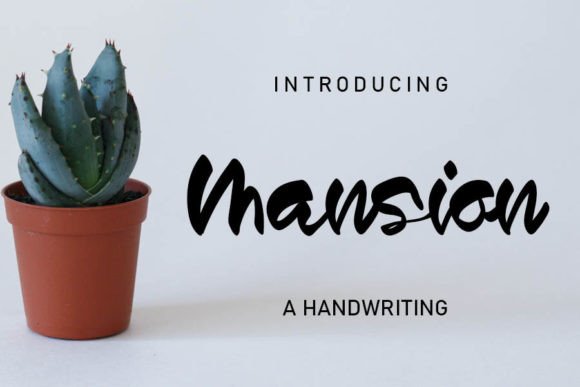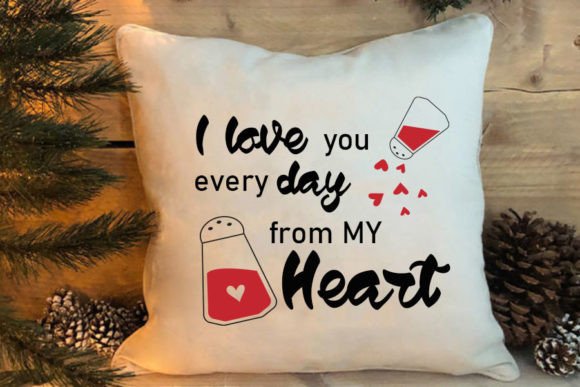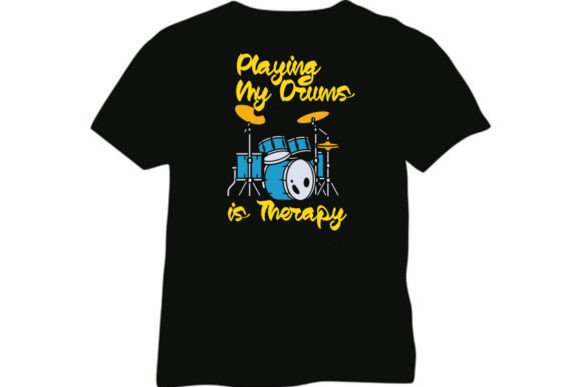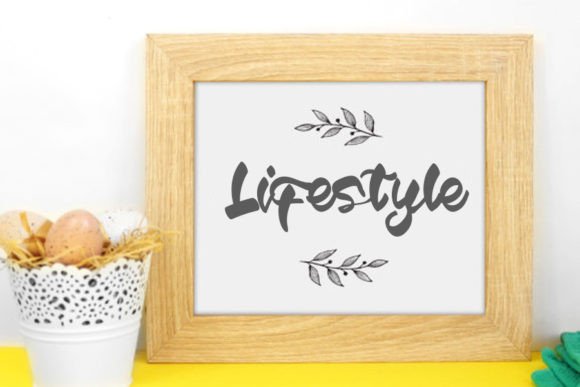
About Mansion Font
“Mansion” is a whimsical and playful handwritten font that brings a touch of charm and trendiness to your design ideas. This font has a lovely and lighthearted quality, making it suitable for a variety of creative projects that require a playful and trendy touch.
The standout features of “Mansion” are its whimsical and playful nature. Its handwritten style exudes a sense of spontaneity and authenticity, making it an excellent choice for projects that aim to capture a lively and contemporary aesthetic.
Picture using “Mansion” to create captivating event posters or eye-catching social media graphics that resonate with a modern audience. Visualize incorporating this font into invitations, flyers, or any design project that needs a touch of whimsy and trendiness. “Mansion” can also add a playful twist to branding and logo designs, especially for businesses or products with a fun and lighthearted identity.
In conclusion, “Mansion” is not just a font; it’s a design resource that introduces a whimsical and playful dimension to your creative work. Its handwritten style makes it ideal for projects that require a trendy and lighthearted touch. Embrace “Mansion” as a font that enhances your designs and brings a delightful and contemporary quality to your ideas.